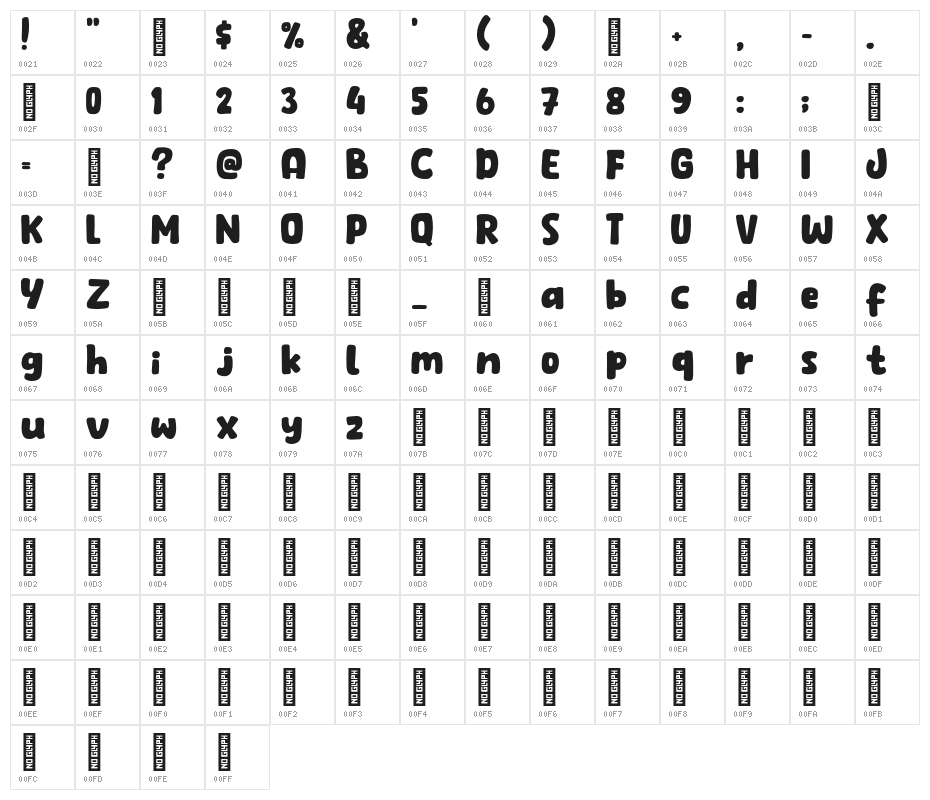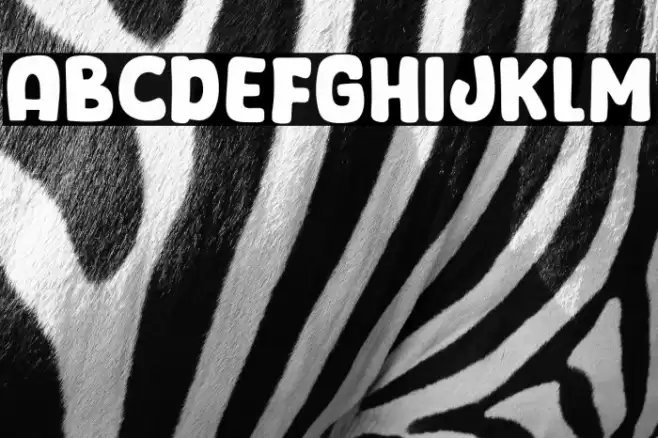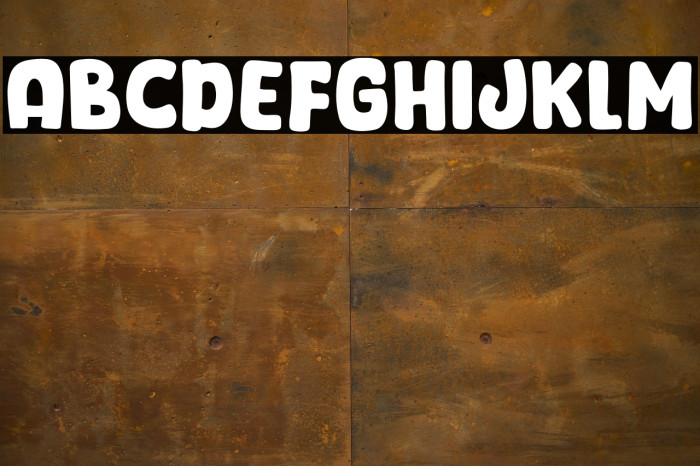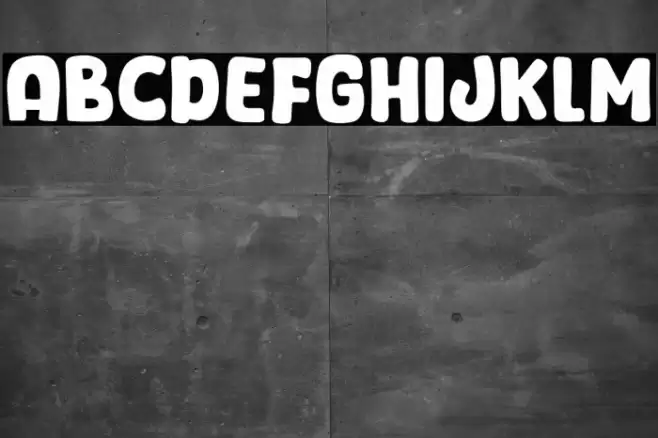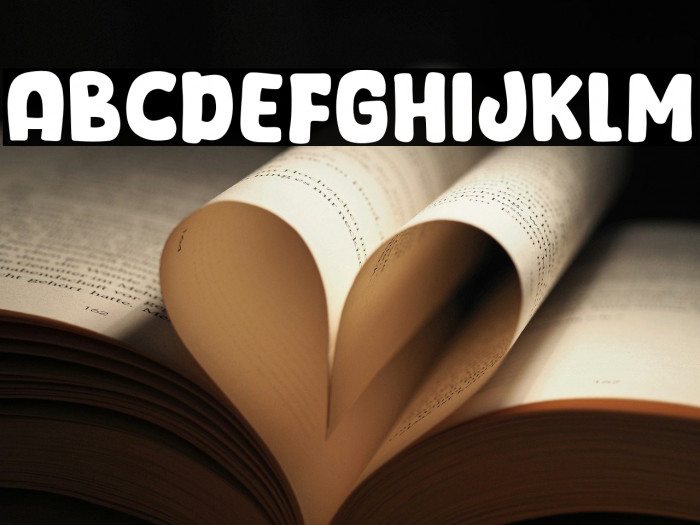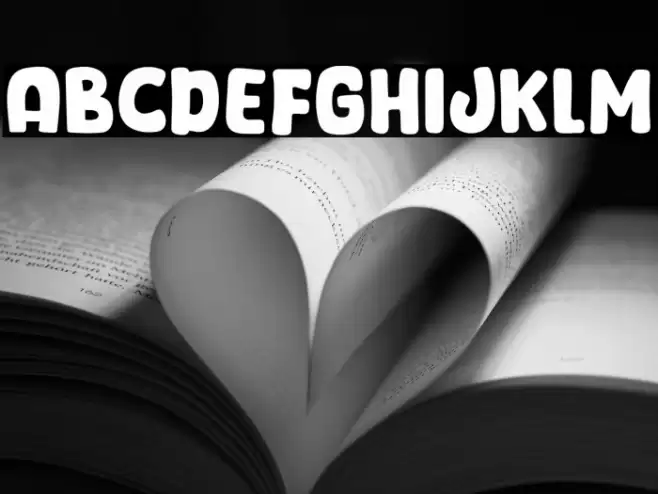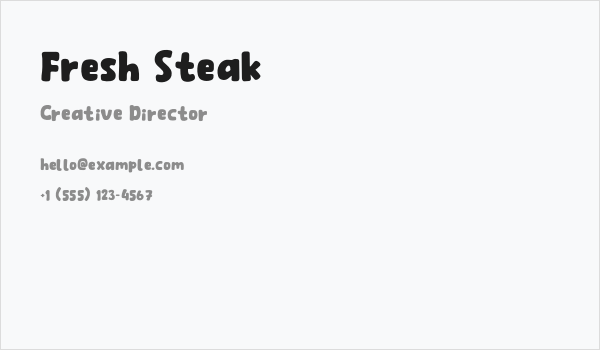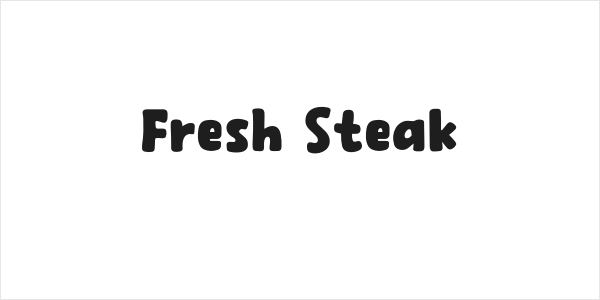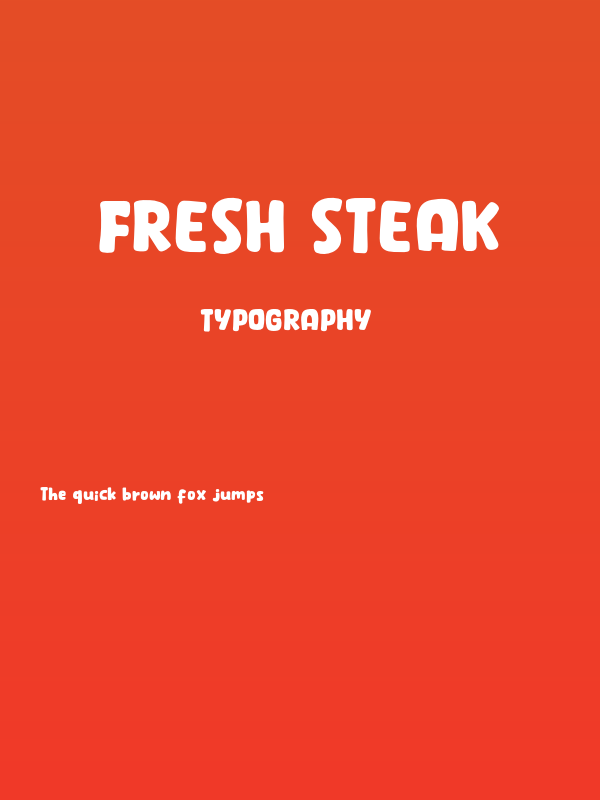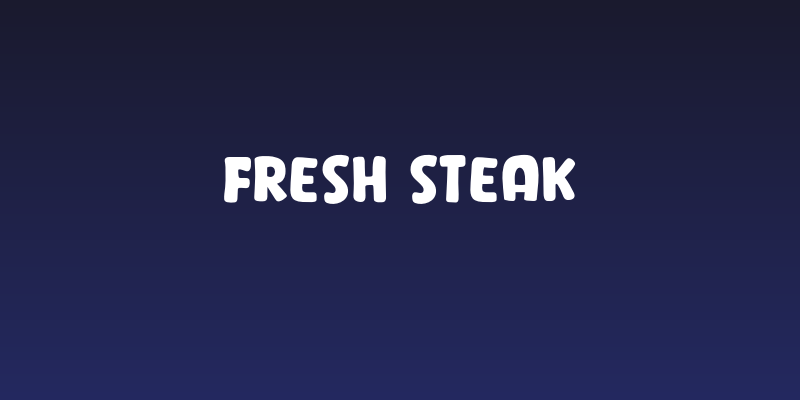
Fresh Steak Font
Fresh Steak Description
This playful and bold font features rounded, thick strokes that give it a friendly and approachable appearance. The characters are slightly irregular, adding a whimsical touch to the overall design. The uppercase and lowercase letters maintain a consistent style, with a uniform thickness that ensures readability. The numbers and special characters follow the same playful aesthetic, making this font versatile for various creative projects. Its boldness and unique style make it stand out, perfect for capturing attention.
| Proposed Projects | Ideal for children's books, playful branding, posters, and social media graphics. |